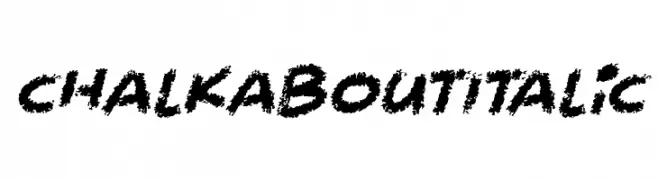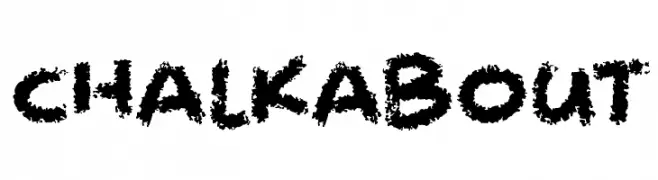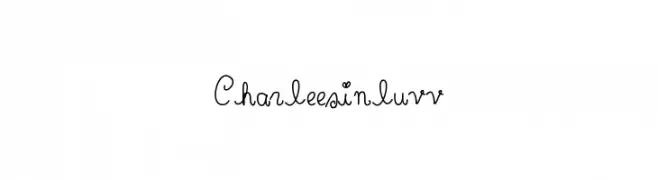
An elegant, flowing script font with smooth, cursive letterforms.
A modern, rounded font with a clean and approachable design.
A modern, rounded, and italic font with a friendly and dynamic style.
A whimsical, handwritten font with playful curls and decorative elements.
A bold, chalk-textured font with an informal, hand-drawn style.
A playful, textured font with a chalk-like, hand-drawn appearance.
A bold, impactful font with strong, thick strokes and geometric shapes.
A bold, italic font with a dynamic and energetic style.
A bold, geometric font with a modern, industrial style.
A bold, italicized font with a modern, dynamic, and geometric style.